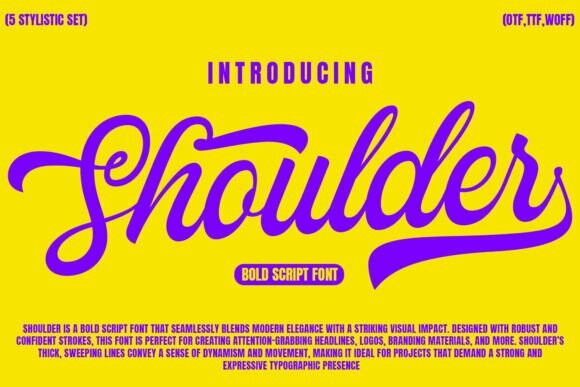
Shoulder Font
Designer: Arendxstudio
Shoulder Font is a bold script font characterized by its strong, flowing, and dynamic letterforms. This type of font is often used in designs that require a blend of elegance and assertiveness, such as logos, branding, headlines, and packaging.